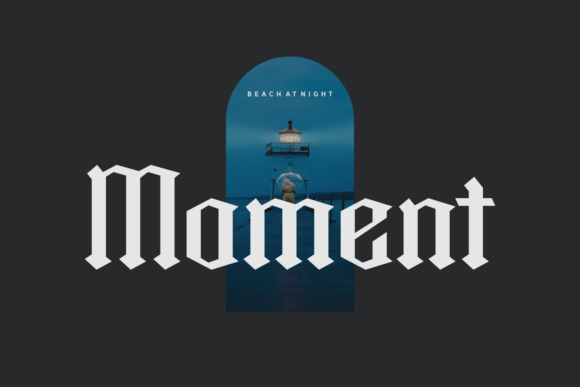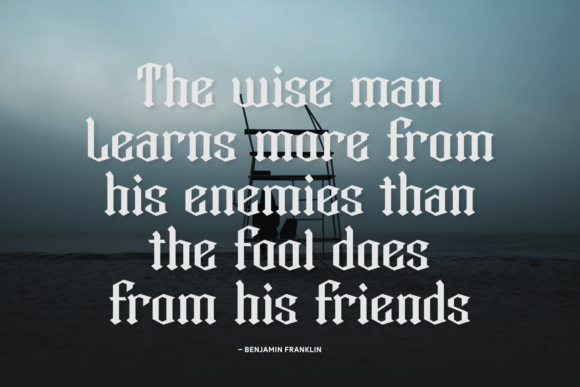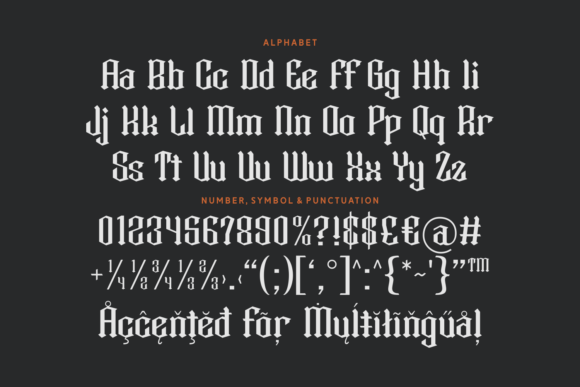
The Perfect Font for a Spooky Autumn
As the leaves start to fall and the nights grow darker, many of us find ourselves drawn to the mysterious and the macabre. It’s a time when the lines between reality and the supernatural begin to blur, and our imaginations run wild with all things spooky. For designers, this means a chance to tap into the darker side of creativity, and bring their most haunting visions to life. And for those looking to add a touch of gothic elegance to their next project, there’s one font that stands out from the rest: the Black Mistic Font.
This classic blackletter typeface is perfect for conjuring up a sense of foreboding and dread, making it ideal for heavy metal logos, horror titles, and fantasy projects. Its medieval character and mysterious atmosphere are sure to transport your audience to a world of darkness and wonder. And with its versatility and timelessness, the Black Mistic Font is a valuable addition to any designer’s toolkit.
Black Mistic Font Key Features
- Unique Characteristics: The Black Mistic font features a unique, modern design with a mix of geometric and organic elements, giving it a distinctive and stylish look.
Black Mistic Font Review
Overall, I’m quite impressed with the Black Mistic Font. Here are some of its standout features:
- ✨ The font’s sleek, modern design is perfect for creating a sophisticated and mysterious atmosphere.
- ✨ The bold, thick lines give the font a dramatic flair, making it ideal for headlines and titles.
- ✨ The font’s versatility allows it to work well in a variety of contexts, from dark and moody to elegant and refined.
However, I do have some reservations about the font:
- ⚠️ At larger font sizes, the bold lines can become somewhat clumsy and overwhelming, detracting from the overall aesthetic.
- ⚠️ The font’s limited character set may make it less suitable for lengthy texts or complex typography.
- ⚠️ The font’s bold design can make it difficult to read in certain situations, particularly at smaller font sizes or in low-light conditions.
Despite these limitations, I think Black Mistic Font is a great addition to any designer’s toolkit. Its unique blend of sophistication and drama makes it a standout choice for projects that require a bit of flair. Just be sure to use it judiciously and in contexts where it will shine.
Black Mistic Font is commonly used for:
1. Creating a mysterious or luxurious atmosphere in branding and marketing materials.
2. Designing invitations, menus, and other print materials that require a touch of elegance.
3. Adding a sophisticated touch to digital content, such as website headers and social media graphics.